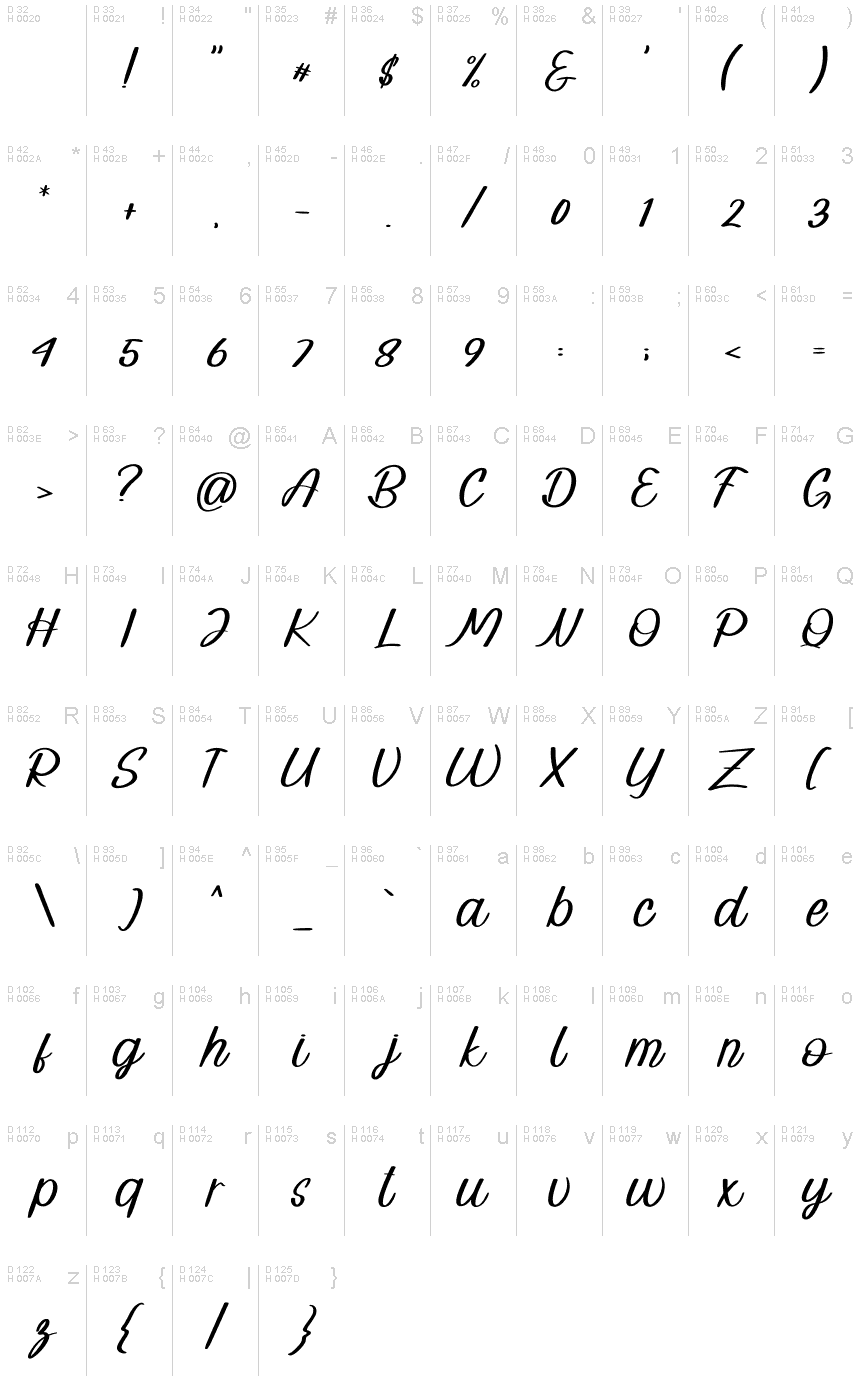
Roadway
Roadway, envisioned by the talented Etik Fatimah, is a semi-light handwritten font that exudes charm and personality. With its delicate strokes and cool demeanor, Roadway is a versatile script that brings an authentic touch to your creative endeavors.
Whether gracing the elegant curves of wedding invitations or adding a personal twist to food packaging, this font stands out for its ability to infuse warmth into every word. Its suitability stretches across various platforms-from crafting heartfelt letters to designing eye-catching titles-making it an indispensable tool for designers seeking a blend of casual sophistication and artistic flair in their projects.